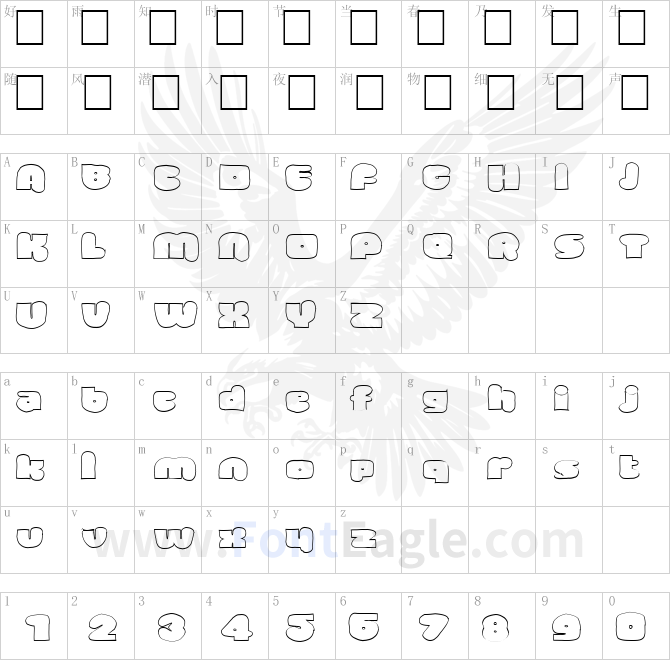
Vinsome is a great font, widely used in graphic design, single-page menu design, poster design and other fields, and is deeply loved by designers.Vinsome download.